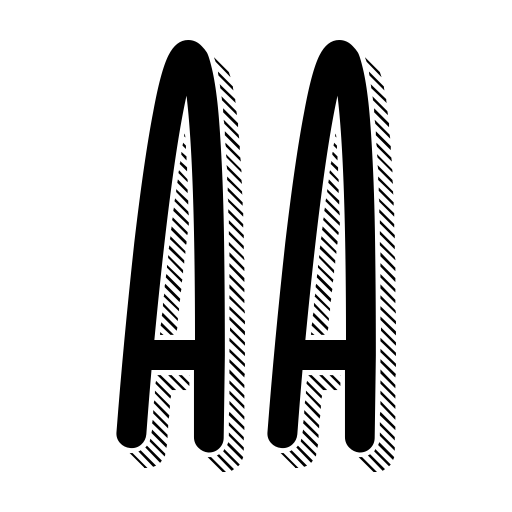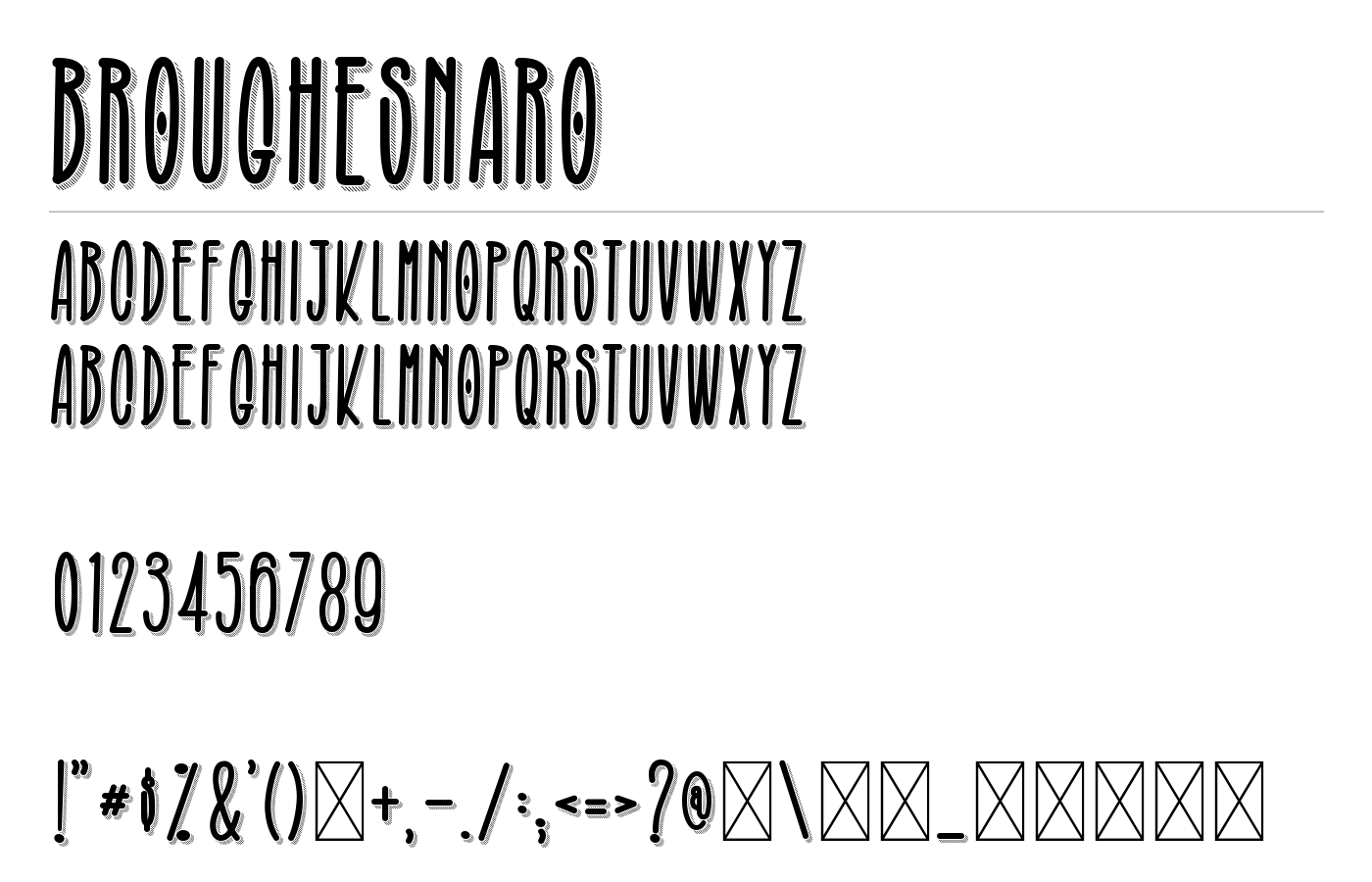
Broughesnaro is a condensed, bold display font with a vintage flair, characterized by its tall, narrow letterforms and distinctive shadow effect that adds depth and a touch of retro charm. Its playful yet strong personality makes it ideal for eye-catching headlines, posters, and branding that seek a nostalgic or artistic vibe. This font works best where uniqueness and visual impact are desired without sacrificing legibility.
Broughesnaro Font
About Broughesnaro Font